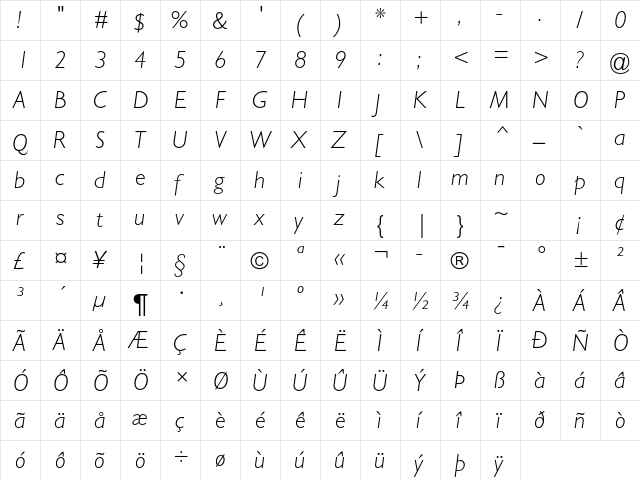
Gill Sans Std Light Italic
| Designer | Eric Gill |
Design Context for Gill Sans Std Typeface
Gill Sans Std is a composed and adaptable typeface that performs quietly and consistently across a wide range of design contexts. The dynamic lean of this cut emphasises speed and emphasis in any layout. The delicate stroke weight brings airiness and refinement to layouts.
Pro Tip: Use Gill Sans Std for emphasis, pull quotes, and subheadings where its slanted energy can add rhythm to the layout.